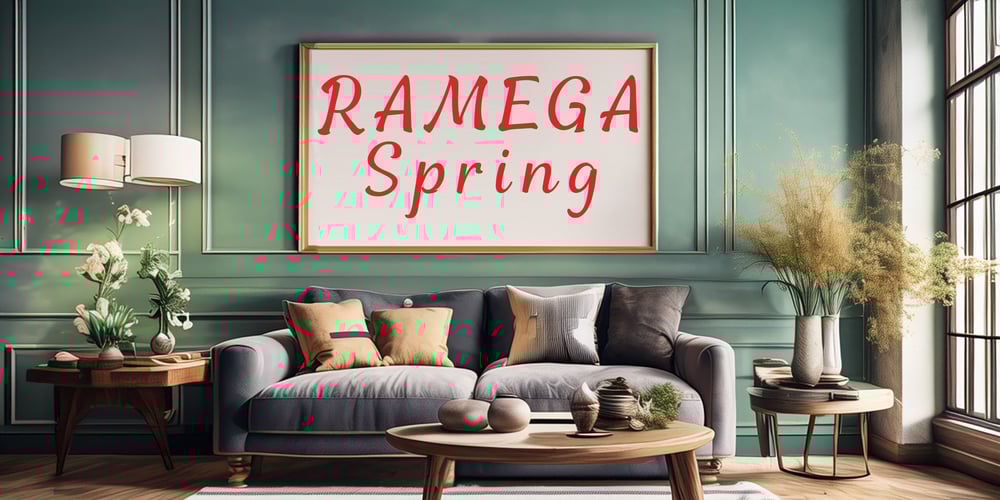
Ramega Spring Font Family was designed by Apollo Zhang and published by Ramega. Ramega Spring contains 1 styles and family package options. Immerse yourself in the artistic elegance of brush calligraphy with the newest addition to the world of typography, the “Smooth Brush Script.” This font captures the fluidity and expressiveness of traditional brush strokes, while presenting a cleaner and more streamlined aesthetic that suits the modern eye.Crafted with meticulous attention to detail, “Smooth Brush Script” is a font that stands out through its unique blend of classic brush writing and contemporary design. Eschewing the characteristic brush splits and ink spreads known as “fly white,” this font delivers smooth and continuous lines that flow seamlessly from one character to the next. The result is a harmonious and undisturbed reading experience that amplifies the beauty of the written word.Ideal for a variety of applications, “Smooth Brush Script” feels right at home in branding projects, editorial design, and advertising campaigns that call for a touch of sophistication and personality. Its organic curves and natural rhythm make it an excellent choice for quotes, invitations, and any project that seeks to convey intimacy and artistry.Each glyph in this exquisite font has been thoughtfully designed to ensure legibility and impact, making “Smooth Brush Script” not just a font, but a statement piece. It stands as a testament to the fusion of tradition with innovation, offering designers and creatives a versatile tool that pays homage to the roots of calligraphy, yet breaks free from its constraints to meet the versatile needs of 21st-century communication.”Smooth Brush Script” is more than just a typeface; it is a celebration of heritage wrapped in the sleekness of modern design. Elevate your projects with a font that speaks volumes in an understated whisper, and let “Smooth Brush Script” be the conduit for your creative expression.